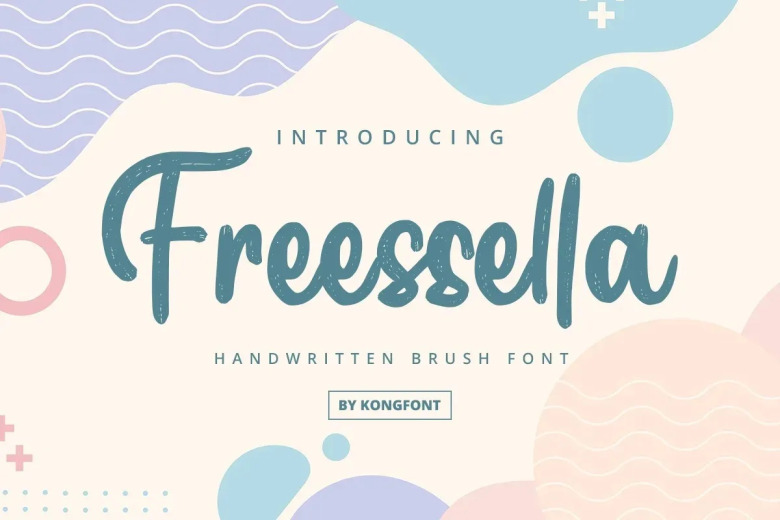
Freessella Font
Freessella is a classic and elegant handwritten script brush font with lots of detail in every letter. This typeface was devised by making brushstrokes despite its unique retro style, it will revive your design and make your works as lively again.
Freessella Handwritten Brush Font